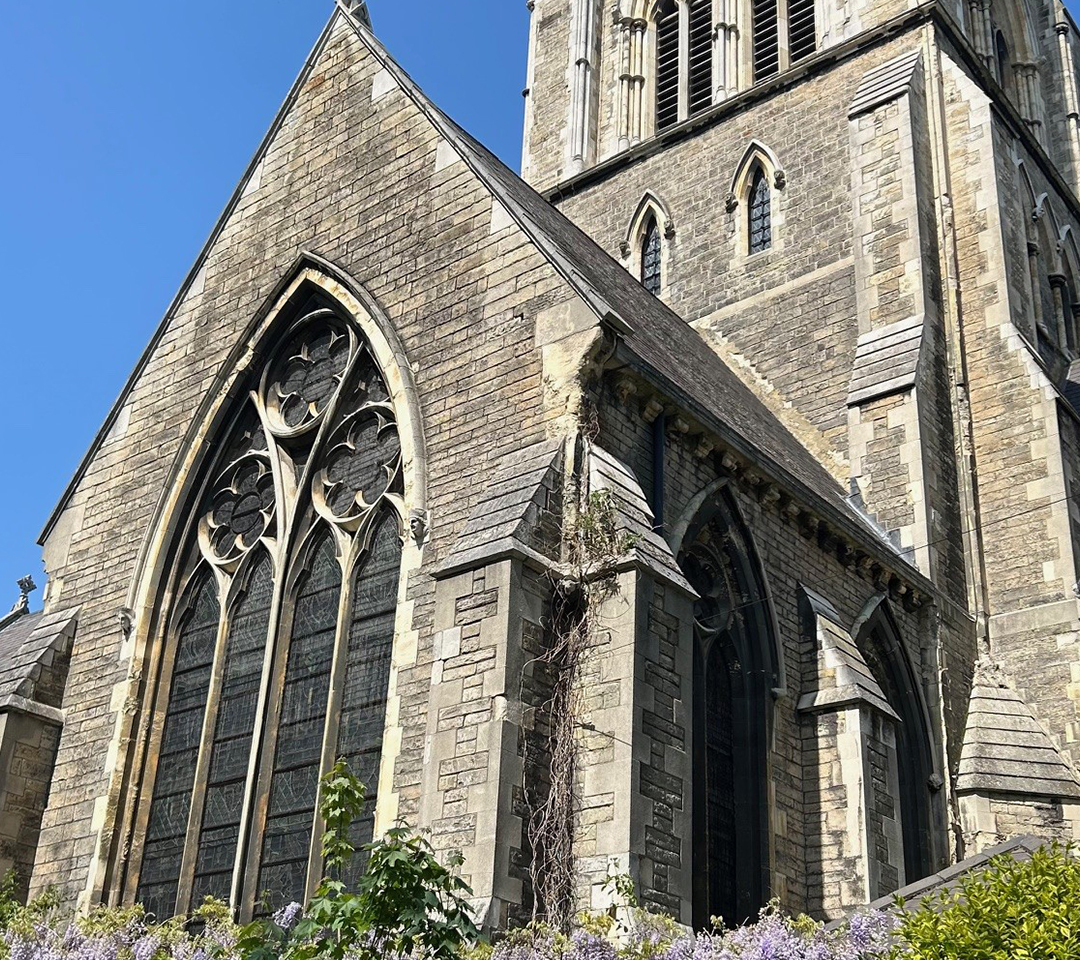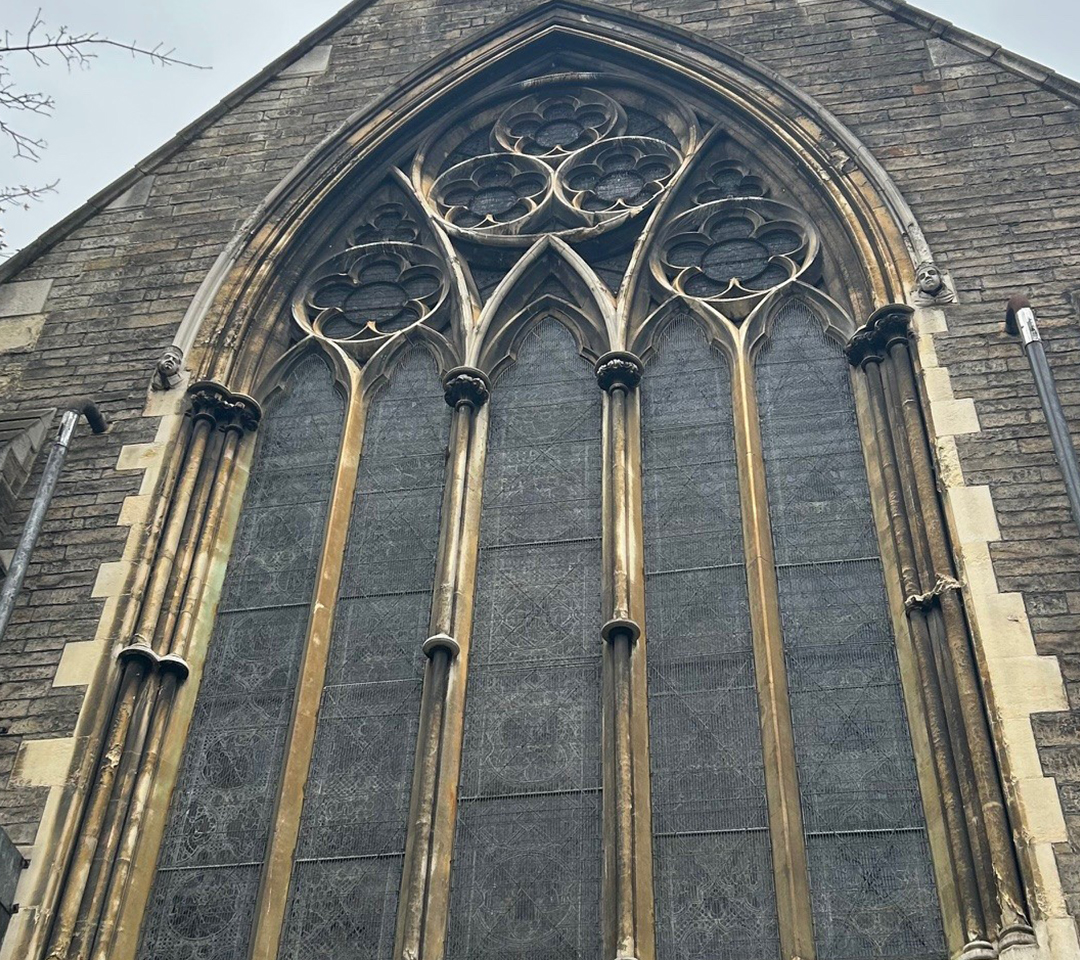
'Crocket' is inspired by the architectural details found within the windows and arches of St Giles Church in Camberwell. A key feature within this Church is a Crocket, which is a decorative motif commonly used within Gothic architecture, usually in stylised carvings of leaves, buds or flowers. Inspired by this element, each character in the typeface has a Crocket embedded into it. Also influenced by the nature of the arches and Gothic elements, the letterforms portray tall and thin characteristics and are composed of carefully placed serifs, reflecting the precision of carved stonework.